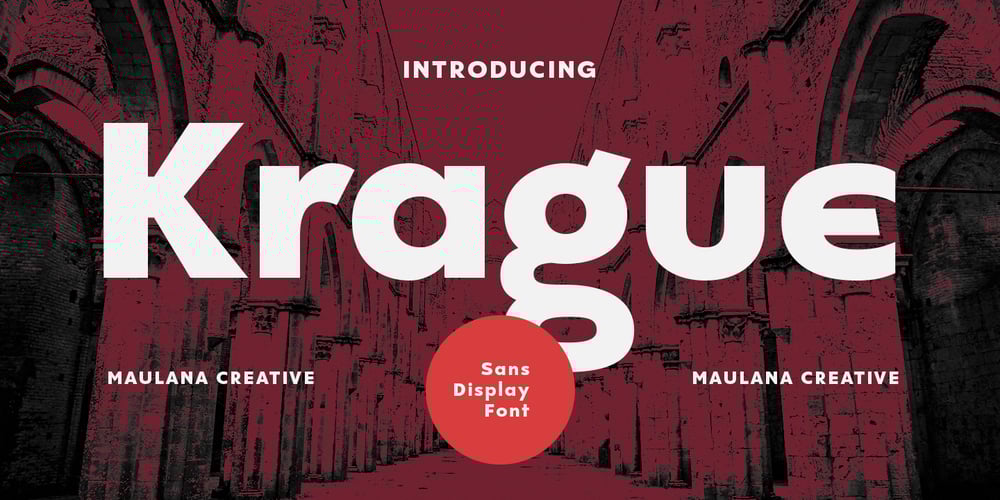
MC Krague Font Family was designed by Gilang Maulana and published by Maulana Creative. MC Krague contains 1 styles and family package options. Krague is a a 50’s revival sans serif font. Bold stroke, fun character with a bit of ligatures and alternates. To give you an extra creative work. Krague font support multilingual more than 100+ language. This font is good for logo design, Social media, Movie Titles, Books Titles, a short text even a long text letter and good for your secondary text font with script or serif. Make a stunning work with Krague font. Cheers, Maulana Creative